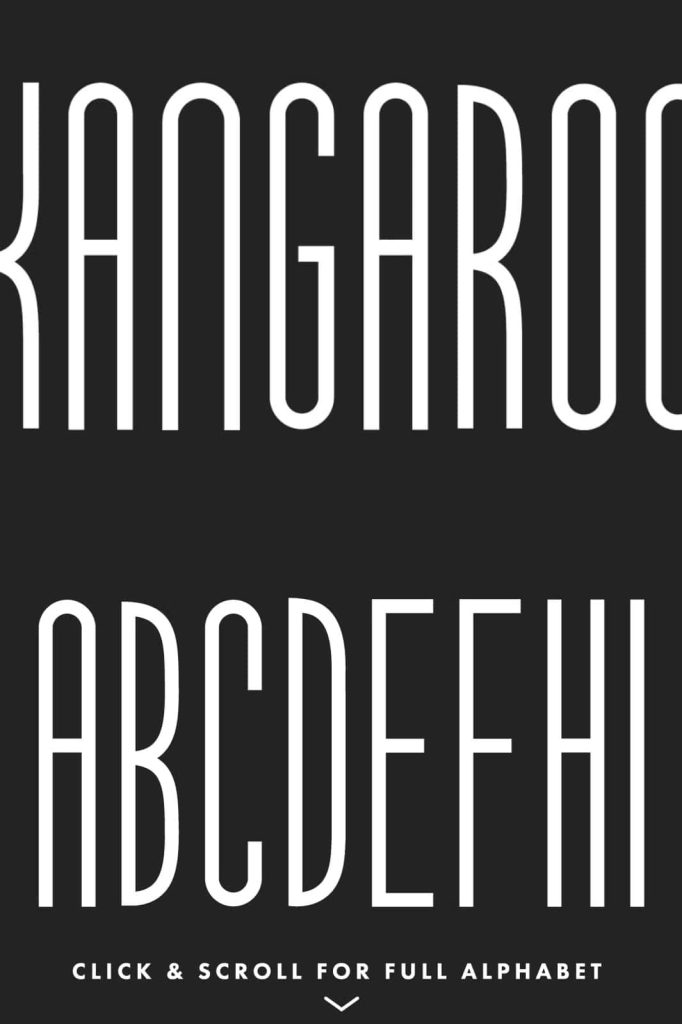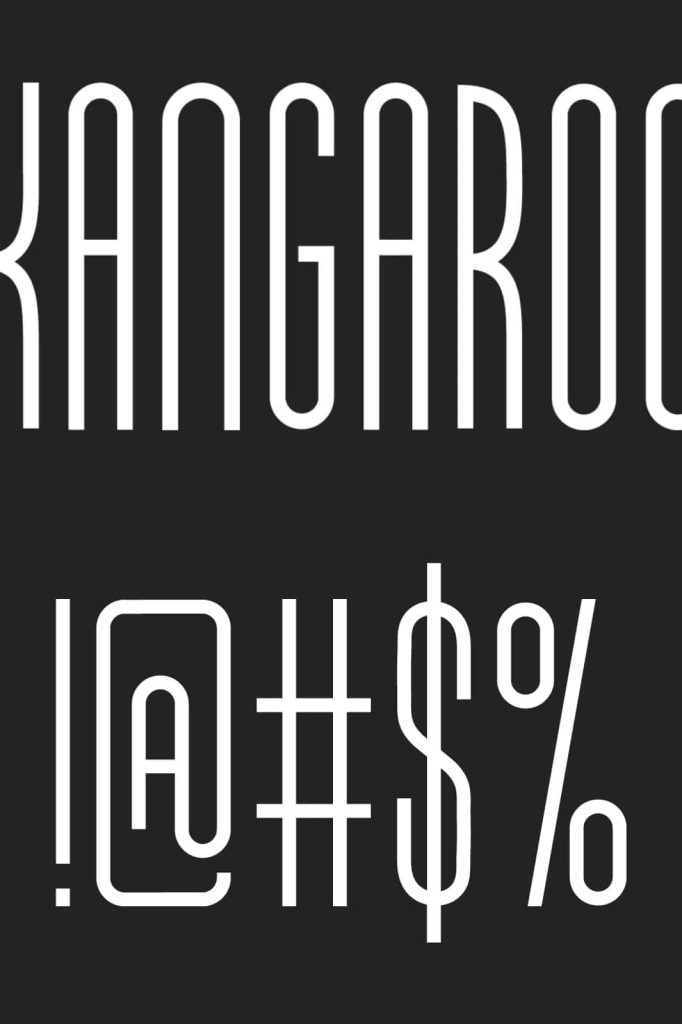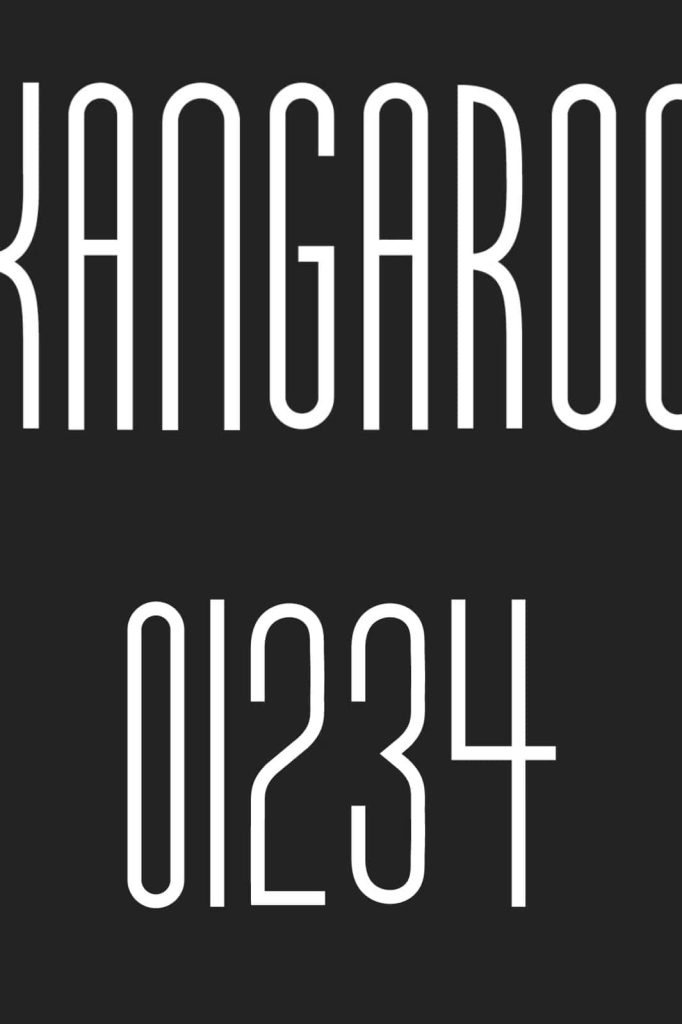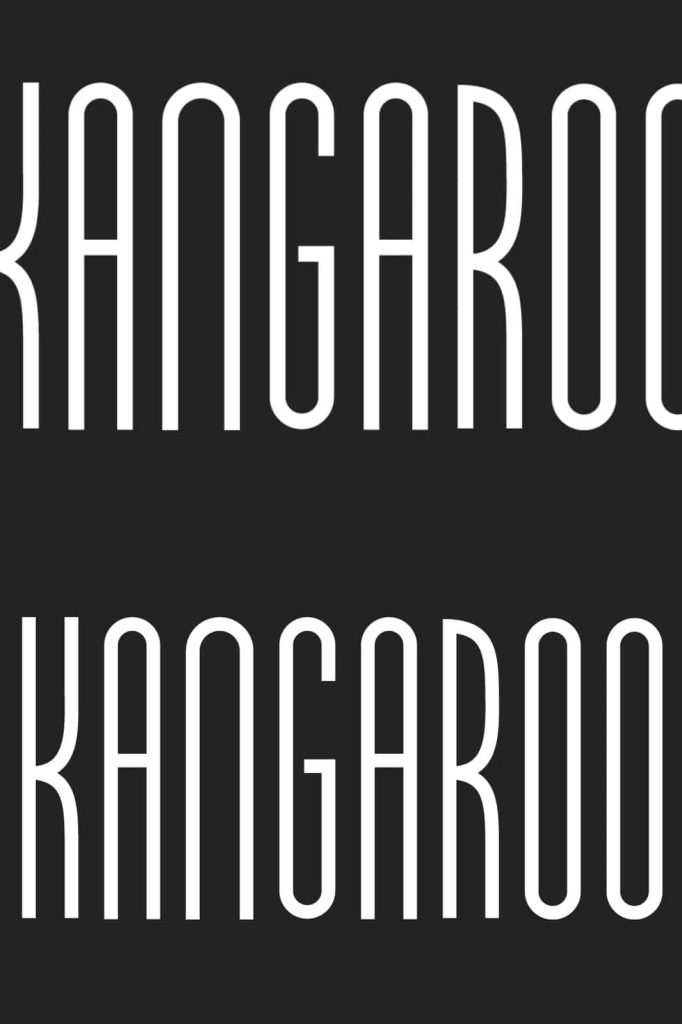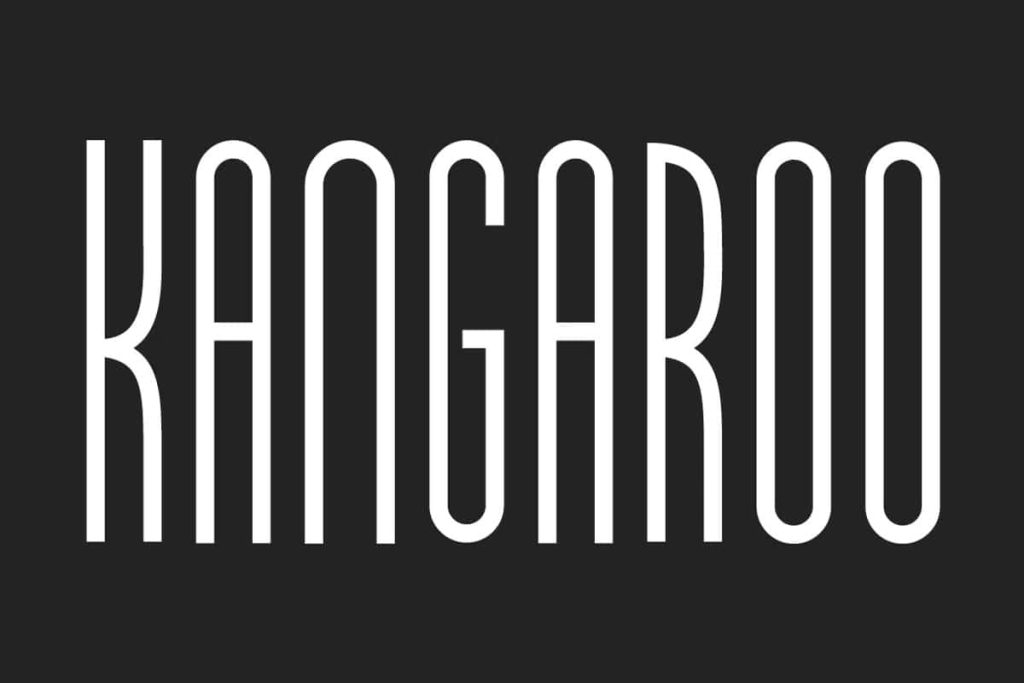
KANGAROO – Condensed Sans SerifleastedJanuary 7, 2025Fonts I created Kangaroo because, as a designer, I am always on the hunt for super tall and super skinny fontsĀ Download